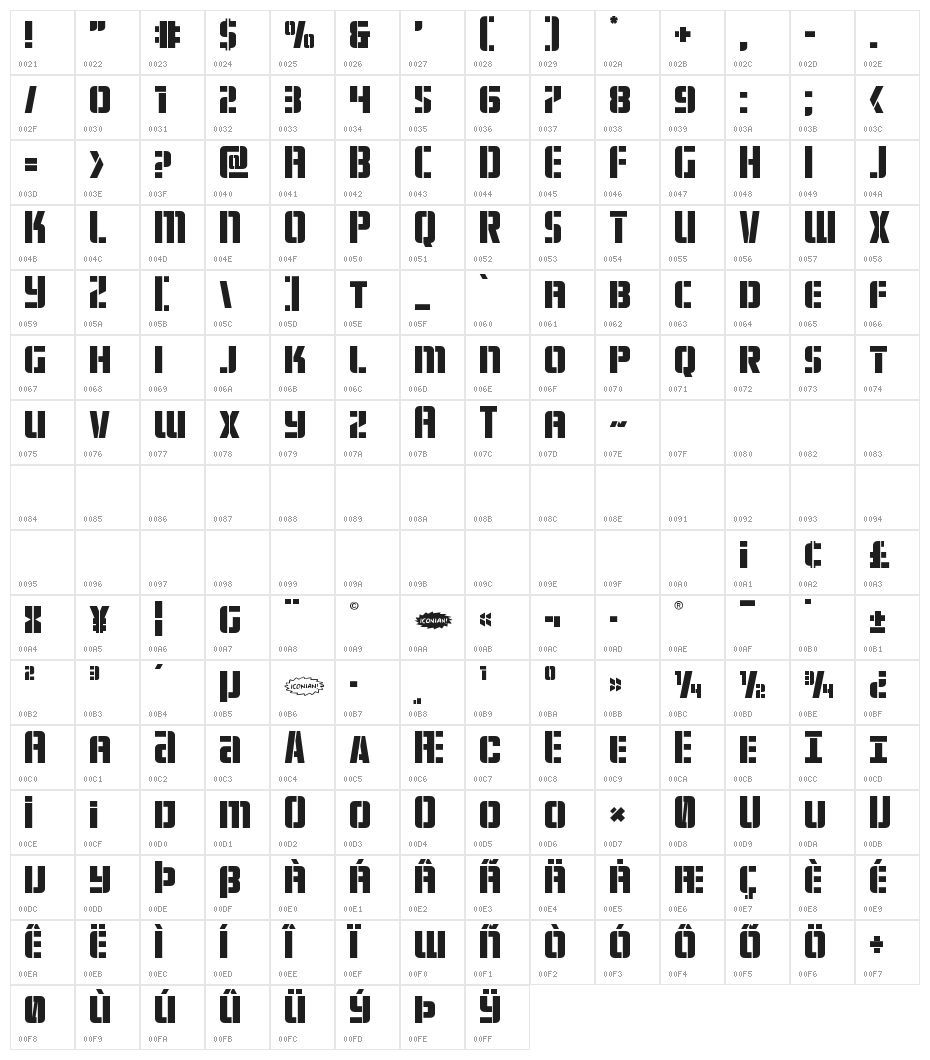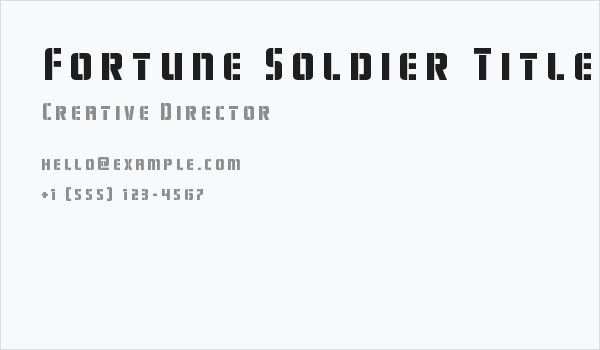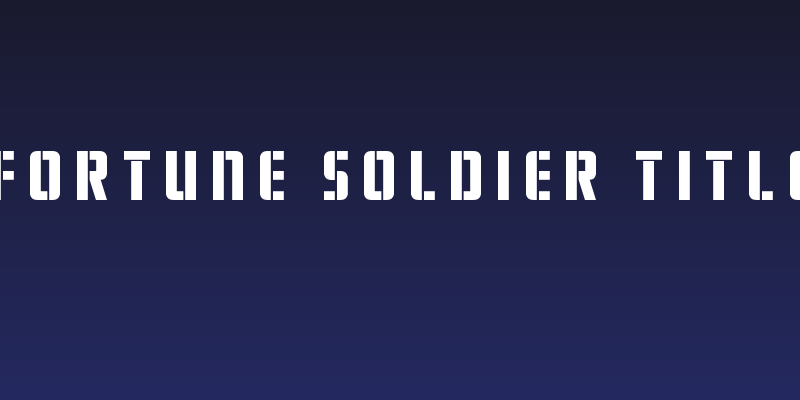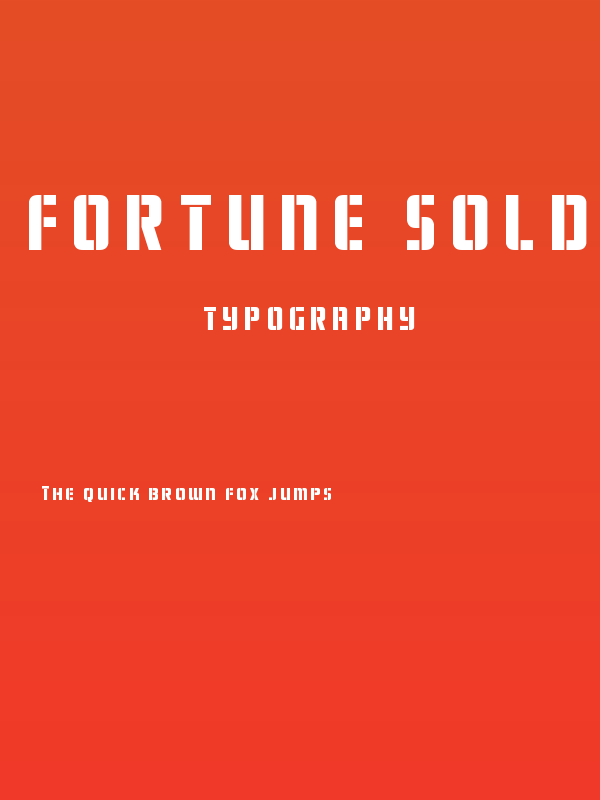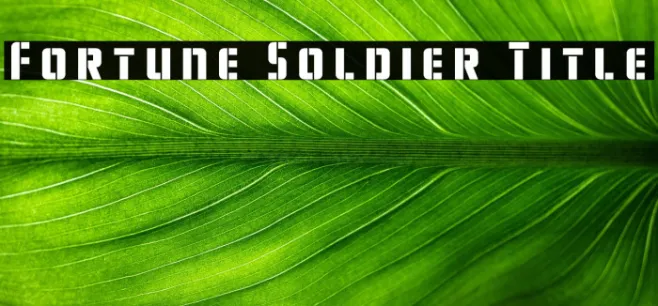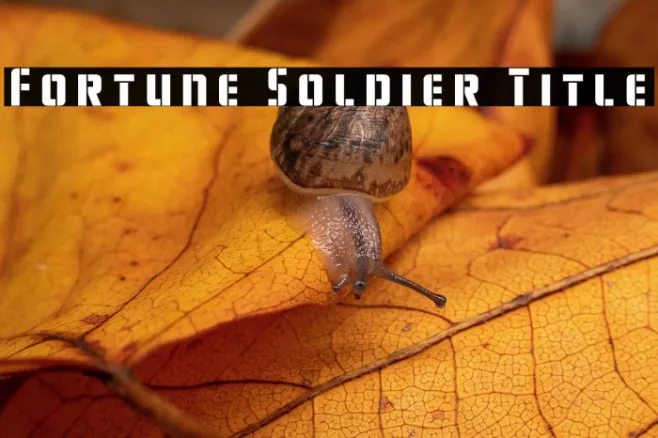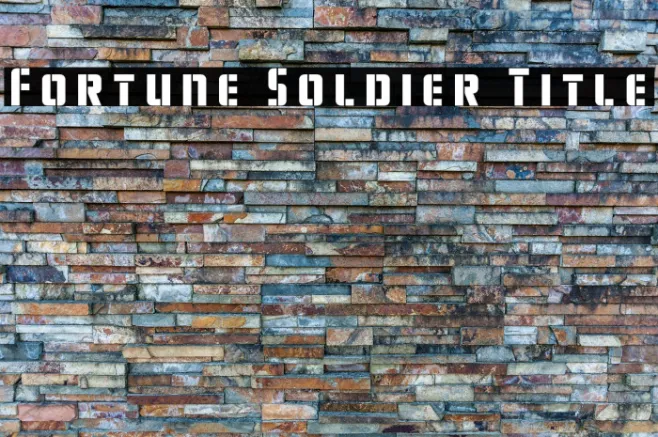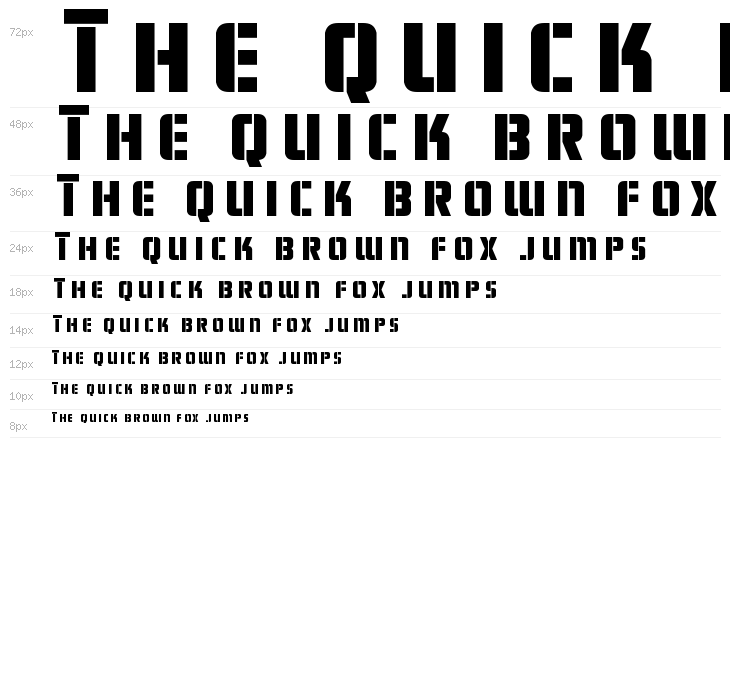
Fortune Soldier Title Font
Fortune Soldier Title Description
This font features a bold, stencil-like design with strong geometric shapes and uniform thickness throughout each character. The letters are constructed with solid blocks and distinct cutouts, giving it a military or industrial feel. The uppercase and lowercase letters maintain a consistent style, with the lowercase being slightly smaller but equally bold. Numbers and special characters follow the same design principles, ensuring a cohesive look across all glyphs. The font's robust and commanding presence makes it ideal for impactful and attention-grabbing designs.